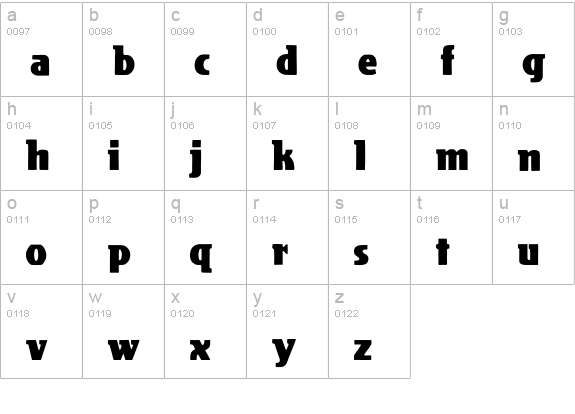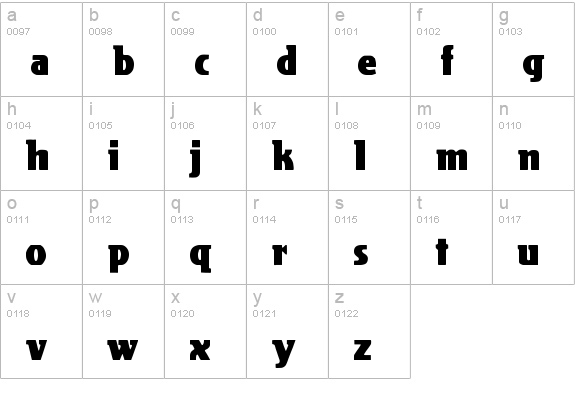
Shopping Font Details
Introducing the Shopping font, a stunning typeface that adds a touch of elegance and sophistication to any design project. This versatile font is perfect for creating eye-catching logos, captivating headlines, and stylish product packaging. With its sleek lines and graceful curves, Shopping font effortlessly captures attention and leaves a lasting impression. But what makes the Shopping font truly remarkable is that it is available completely free of charge. Yes, you read that right - it's absolutely free! You can conveniently download this amazing font at FontsMarket.com, a reputable online platform for all your font needs. Whether you're a professional designer looking to enhance your portfolio or a novice designer exploring the world of typography, the Shopping font is a must-have in your collection. Its versatility allows it to seamlessly adapt to various design styles and projects, making it a valuable asset for any creative endeavor. The Shopping font's clean and modern aesthetic makes it ideal for a wide range of applications, including fashion branding, luxury products, cosmetics, and much more. Its legibility and readability ensure that your message is effortlessly conveyed to your audience, while its unique and elegant character adds a touch of sophistication to your designs. Don't miss out on the opportunity to elevate your designs with the Shopping font. Download it today, completely free of charge, at FontsMarket.com. Enhance your creative projects, captivate your audience, and make a lasting impression with this exquisite font.